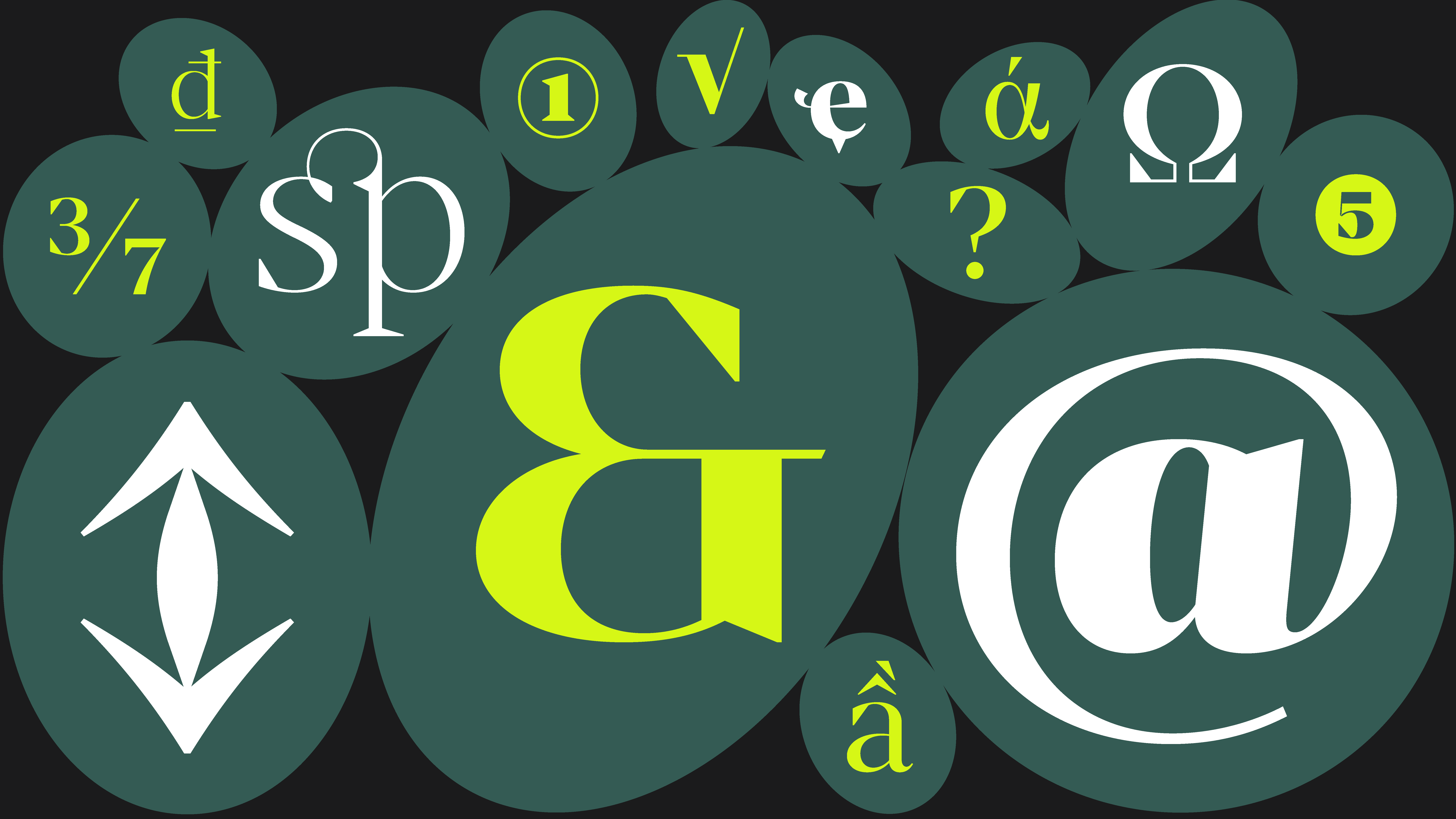
Renai Serif
Ренай Сериф
Когда я впервые услышал слово «Бабелфонт», я подумал, что это, вероятно, название планеты, где буквы растут на деревьях, а абзацы пролетают в небе, как птицы, которые забыли, что у них есть перья. Я попытался напечатать своё имя, но оно сбежало с экрана. Удивительно, как типографика умеет быть… невидимой! Когда она хороша — вы не её видите. Когда она плоха — вы не видите ничего!
С Бабелфонт всё наоборот. Шрифт не просто говорит, он поёт, прыгает, танцует фламенко, потом внезапно садится и читает Пушкина. Один кегль уходит в отпуск, другой страдает от депрессии, а жирный начертание громко жалуется, что его никто не слушает, потому что все читают курсив!
Я пытался объяснить это типографу. Он сказал: «Вы читаете с левой направо, но думаете сверху вниз». Это меня успокоило. Потому что я всегда думал, что буквы — это только формы. Но нет! У каждой буквы — душа. А у некоторых даже кошачьи усы.
Теперь я просыпаюсь, пью кофе, и шрифт сам выбирает меня. Один день — Тифинаг и Таймс Роман. Следующий — Арабика с Траклом. И всё это благодаря Бабелфонту. Потому что, если бы не он, я бы до сих пор писал всё в Comic Sans. А это, как вы понимаете, уже не жизнь — это кара!
Ρεναΐ Σερίφ
Όταν άκουσα για πρώτη φορά τη λέξη «Babelfont», νόμιζα ότι ήταν το όνομα ενός νησιού όπου τα γράμματα φυτρώνουν στα δέντρα και οι παράγραφοι πετούν στον ουρανό σαν πουλιά που ξέχασαν πώς να πετάξουν. Προσπάθησα να γράψω το όνομά μου, αλλά αυτό έφυγε από την οθόνη. Είναι περίεργο πώς η τυπογραφία μπορεί να είναι... αόρατη! Όταν είναι καλή, δεν τη βλέπεις. Όταν είναι κακή, δεν βλέπεις τίποτα!
Με το Babelfont, είναι το αντίθετο. Η γραμματοσειρά δεν μιλάει απλώς, τραγουδάει, χορεύει φλαμένκο, και ξαφνικά κάθεται και διαβάζει Πούσκιν. Ένα μέγεθος γραμματοσειράς πάει διακοπές, ένα άλλο πέφτει σε κατάθλιψη, και η έντονη γραφή παραπονιέται δυνατά ότι κανείς δεν την ακούει, γιατί όλοι διαβάζουν πλάγια!
Προσπάθησα να εξηγήσω αυτό σε έναν τυπογράφο. Μου είπε: «Διαβάζεις από αριστερά προς τα δεξιά, αλλά σκέφτεσαι από πάνω προς τα κάτω». Αυτό με καθησύχασε. Γιατί πάντα πίστευα ότι τα γράμματα είναι απλώς σχήματα. Αλλά όχι! Κάθε γράμμα έχει ψυχή. Και μερικά έχουν ακόμη και μουστάκια γάτας.
Τώρα ξυπνάω, πίνω τον καφέ μου, και η γραμματοσειρά με επιλέγει. Μια μέρα είναι Tifinagh και Times Roman. Την επόμενη, Αραβικά με Trakl. Και όλα αυτά χάρη στο Babelfont. Γιατί χωρίς αυτό, θα έγραφα ακόμα τα πάντα σε Comic Sans. Και αυτό, όπως καταλαβαίνετε, δεν είναι ζωή — είναι τιμωρία!
Renai Serif — Sharp elegance. Bold contrast. A high-contrast serif typeface with razor-sharp terminals and a tall x-height, Renai Serif makes a statement with every glyph. Available in 7 weights, it supports Latin, Greek and Cyrillic, making it a refined choice for multilingual editorial and branding projects. Striking yet readable, assertive yet elegant: Renai Serif is designed to stand out across both print and screen.